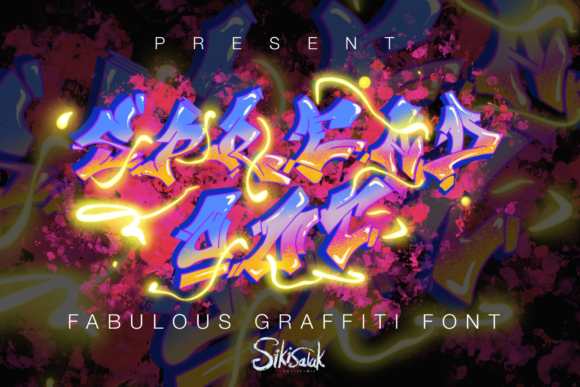
Introducing Spread Out: The Font That Speaks Louder Than Words
In a world of ordinary fonts, Spread Out stands out as a bold and captivating display font, ready to elevate your designs to new heights. Created by the talented sipanji figuree, this urban-styled font is the perfect choice for designers seeking a touch of wall art charm.
Spread Out is not just a font; it's a statement. Its bold and confident strokes command attention, while its wall art-inspired aesthetic adds a touch of edginess and personality to your designs. Whether you're creating branding materials, eye-catching headings, or intricate invitations, Spread Out is the perfect choice to make your words pop.
Unleash Your Creativity: From Branding to Packaging, Spread Out Has You Covered
With its versatility, Spread Out is the ultimate creative companion, ready to transform your designs across a wide range of projects. Use it to craft logos that ooze confidence, design labels that scream for attention, or create packaging that demands to be noticed. The possibilities are endless, allowing you to unleash your creativity and leave a lasting impression on your audience.
Make a Statement with Spread Out: The Ultimate Urban Display Font
In the realm of display fonts, Spread Out reigns supreme. Its urban style exudes a raw and edgy vibe, perfect for capturing the attention of your target audience. Whether you're designing advertising campaigns, creating t-shirt designs, or crafting handmade cards, Spread Out adds a touch of street art flair that sets your work apart from the rest.
Spread Out: The Key to Unlocking Your Design Potential
Spread Out is more than just a font; it's a key that unlocks your design potential. With its bold and captivating strokes, it transforms ordinary designs into masterpieces. Its versatility makes it suitable for a wide range of projects, from branding to packaging, while its urban style adds a touch of edginess and personality.